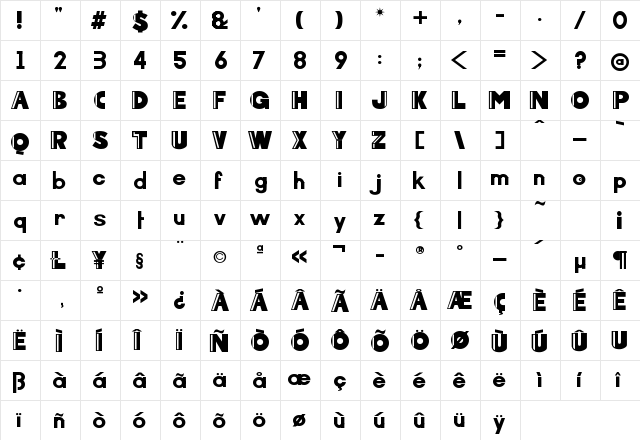
Arcoverde Regular
Design Context for Arcoverde Typeface
Arcoverde offers clean, dependable letterforms without strong stylistic allegiance, making it a practical choice for designers who need flexibility.
Pro Tip: Use Arcoverde in both headline and body roles to test its range before committing to a single application.